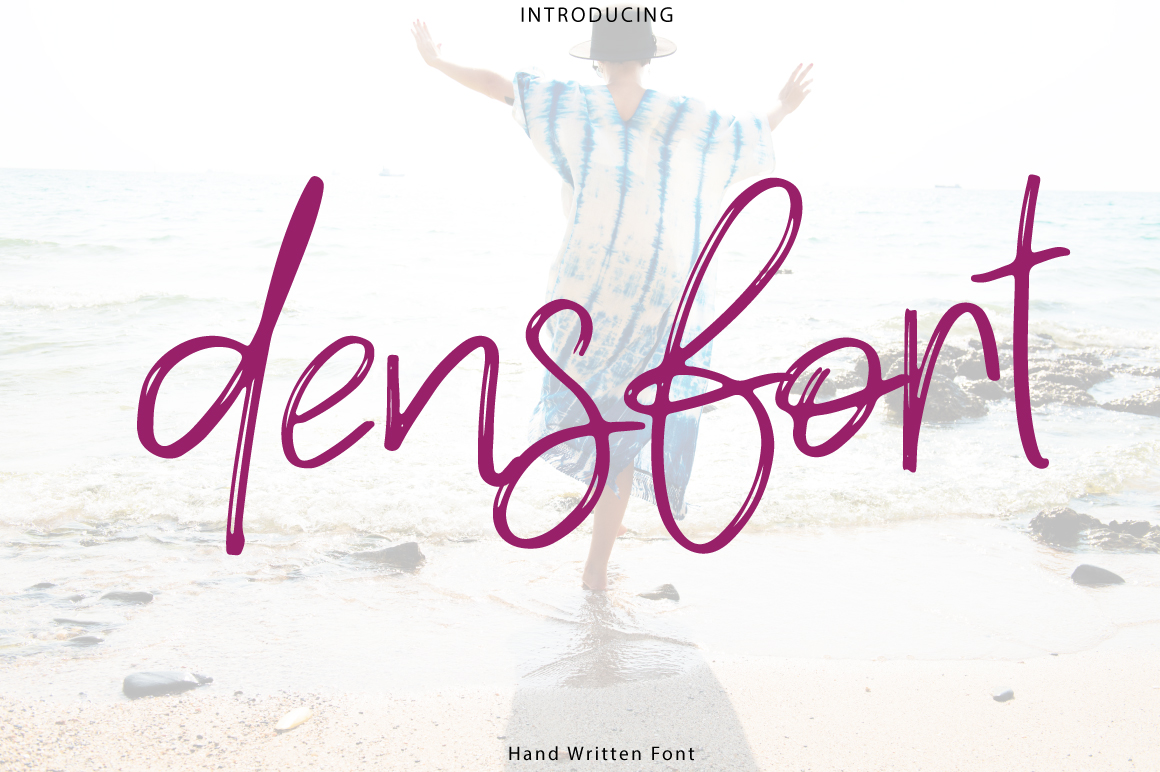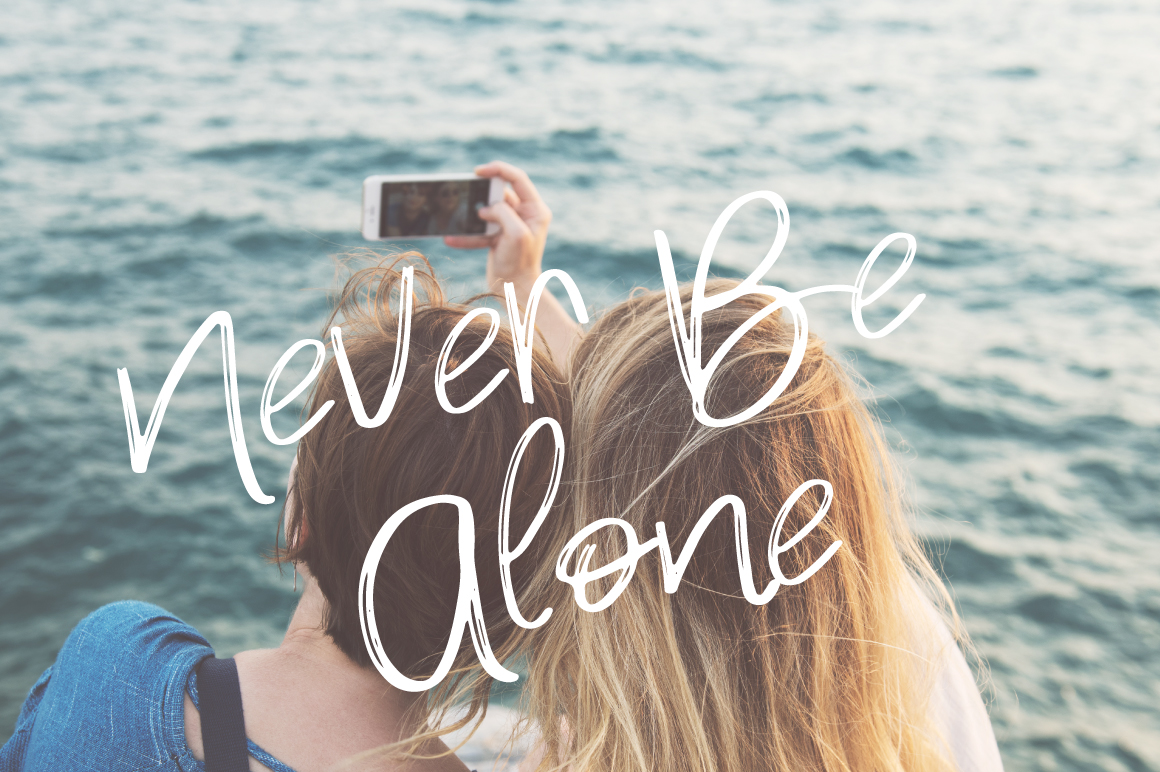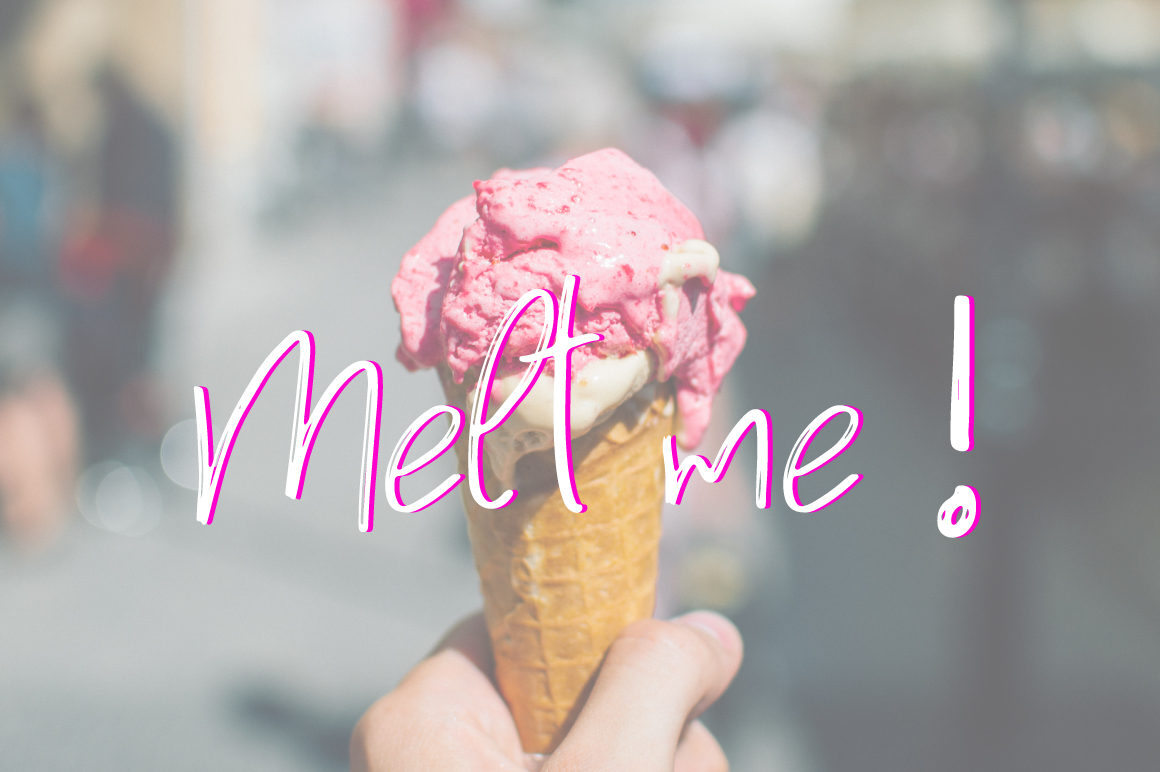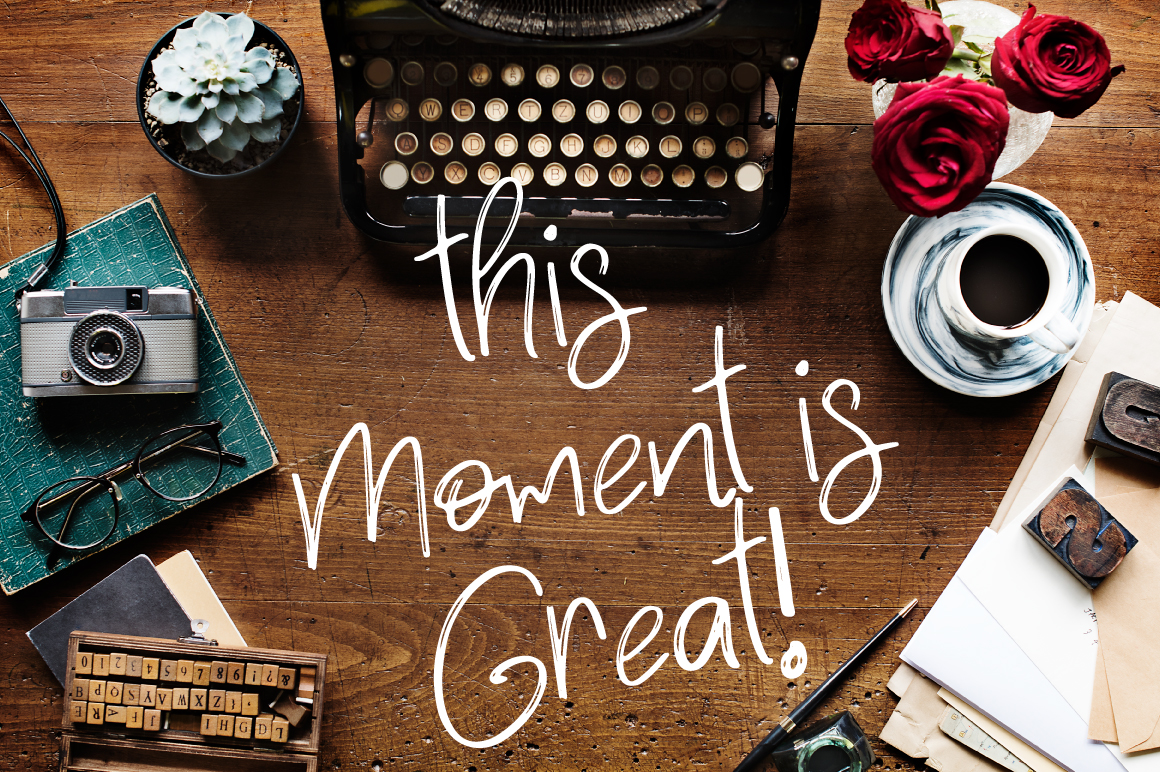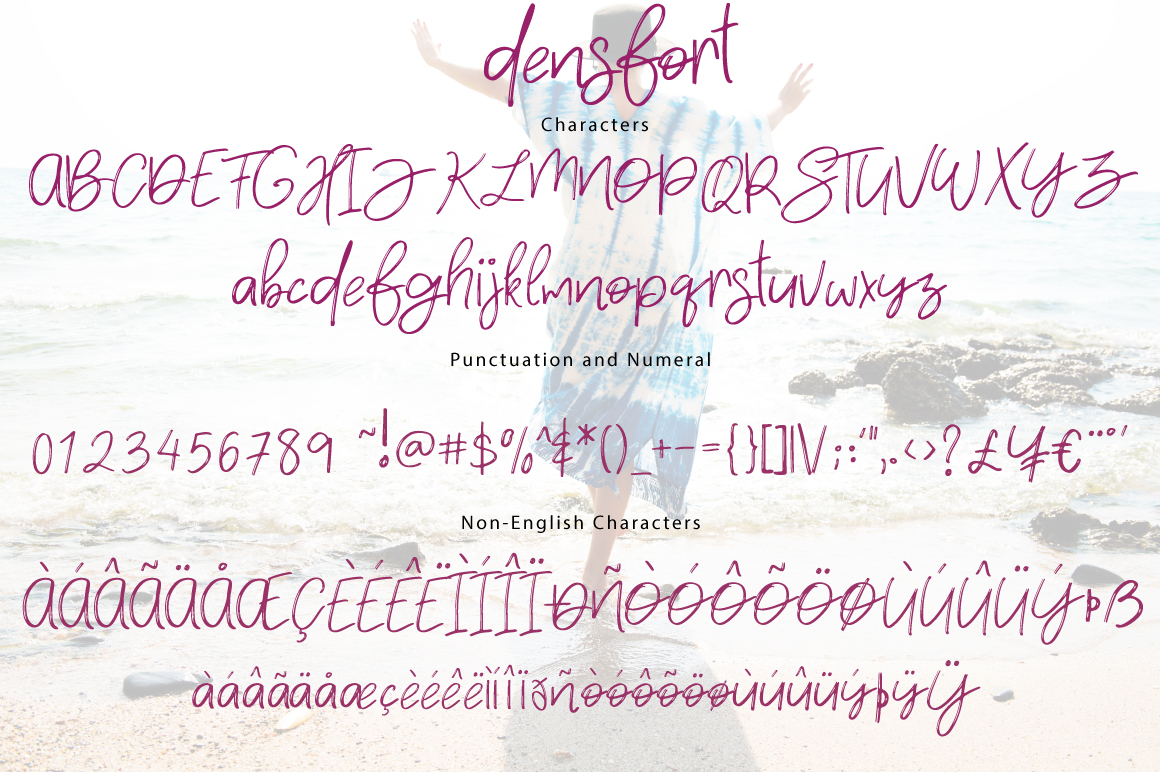
Densfort Font
About Densfort Font
Densfort is a handwritten font which is perfect for adding a personal touch to your invites, banners and works great as an overlay on pictures.